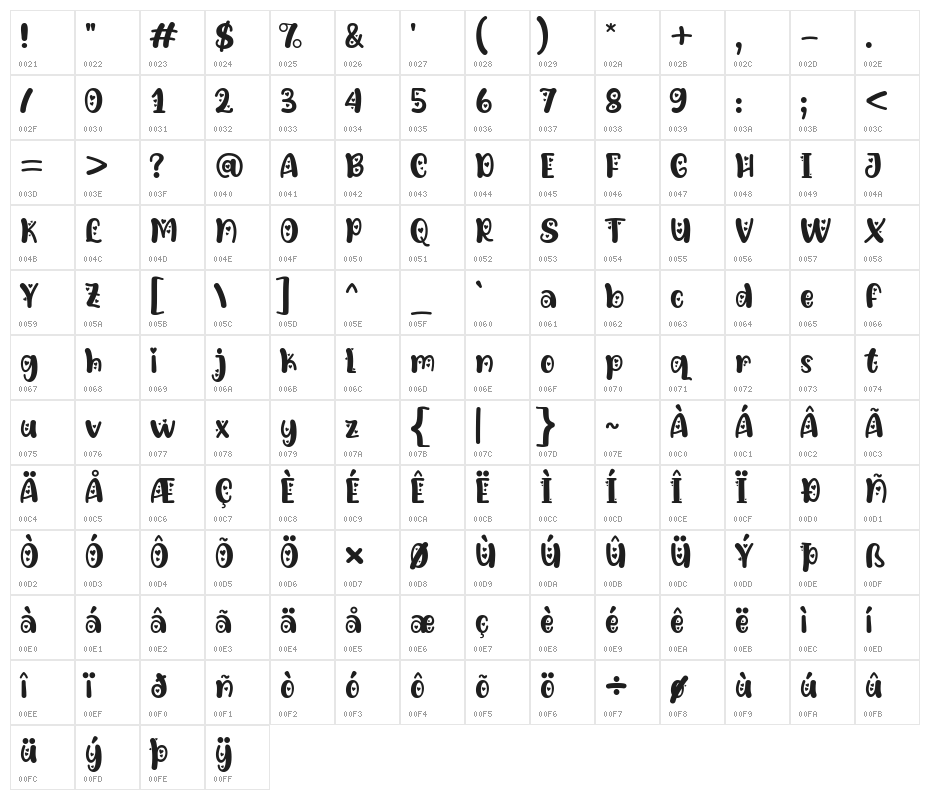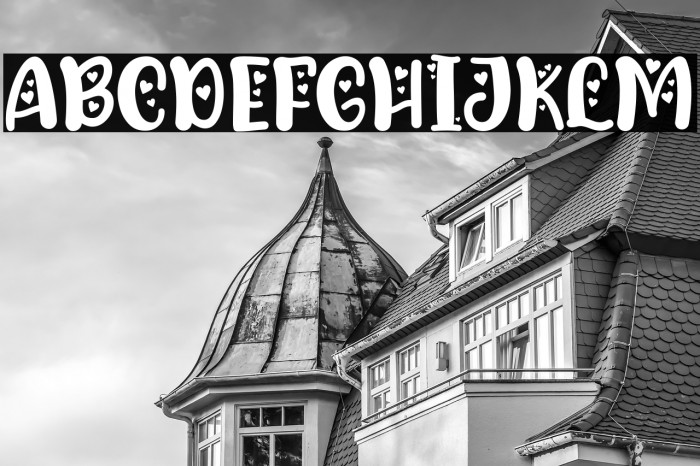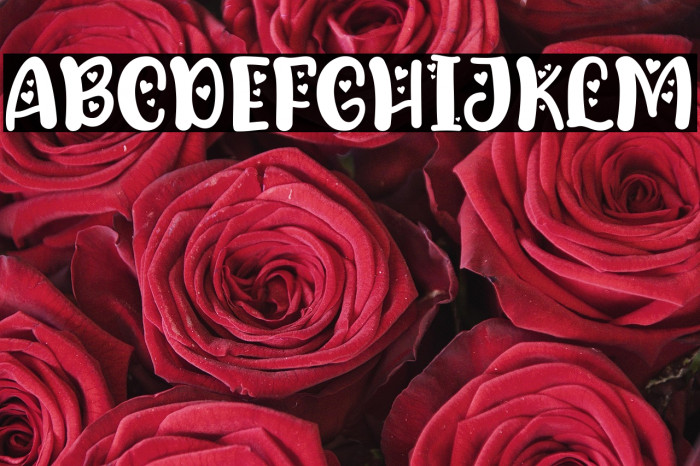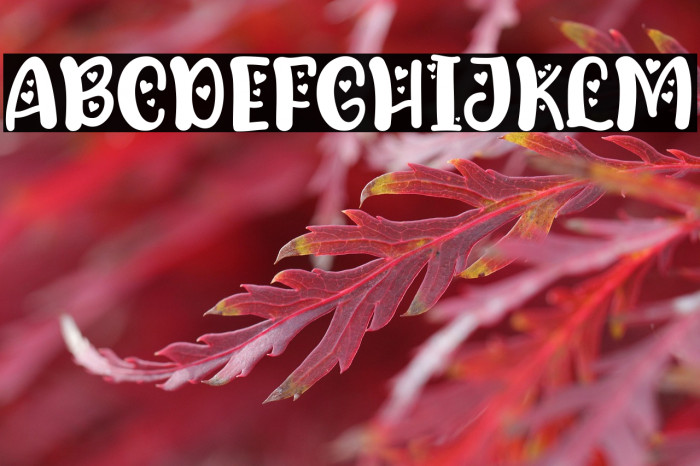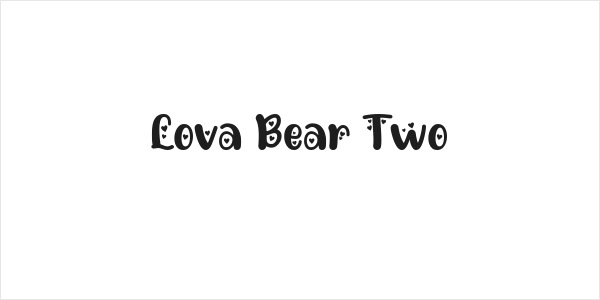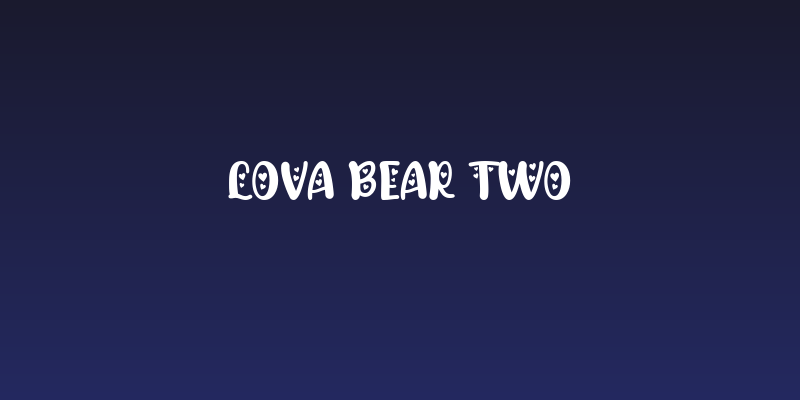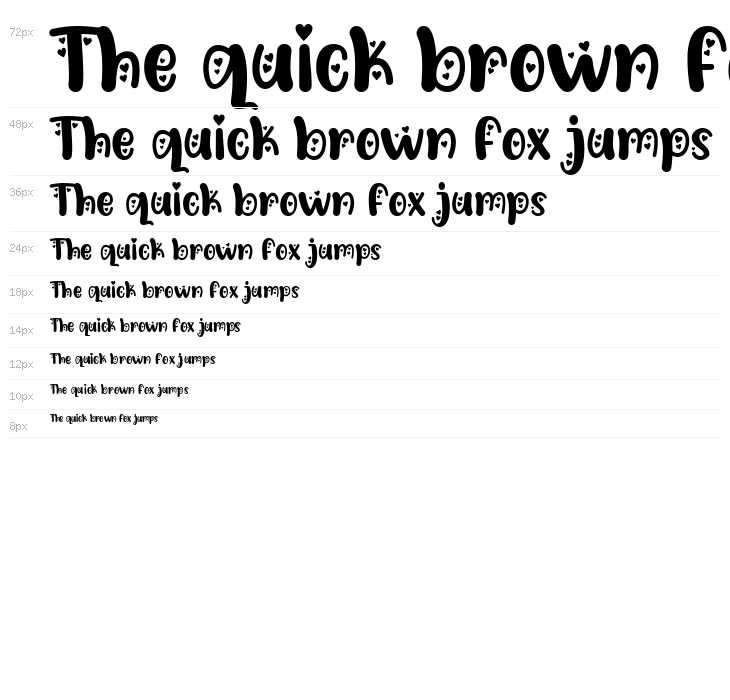
Lova Bear Two Font
Lova Bear Two Description
This playful and whimsical font features bold, rounded characters adorned with heart-shaped cutouts, giving it a charming and friendly appearance. The letters are consistently thick, providing a strong visual presence, while the heart motifs add a touch of fun and creativity. The font maintains a uniform weight throughout, ensuring readability despite its decorative elements. Its unique style makes it ideal for projects that require a lighthearted and engaging look, such as children's books, greeting cards, or playful branding materials.
| Use Case | Headlines, Logos, Decorative text |
| Proposed Projects | Ideal for children's books, greeting cards, playful branding, and party invitations. |